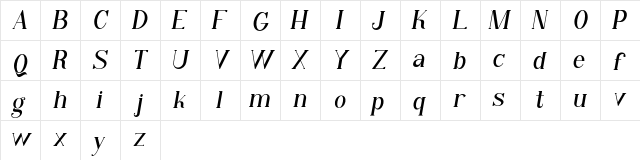
Qiba Serif Italic FREE Italic
Design Context for Qiba Serif Italic FREE Typeface
Qiba Serif Italic FREE carries the refined structure of traditional serif typography, with bracketed terminals and considered proportions that communicate credibility and craft. Its italic angle brings a sense of urgency and motion to the letterforms.
Pro Tip: Use Qiba Serif Italic FREE for editorial body copy and considered headline work. Pair with a neutral sans for UI elements or captions to create a classic hierarchy.